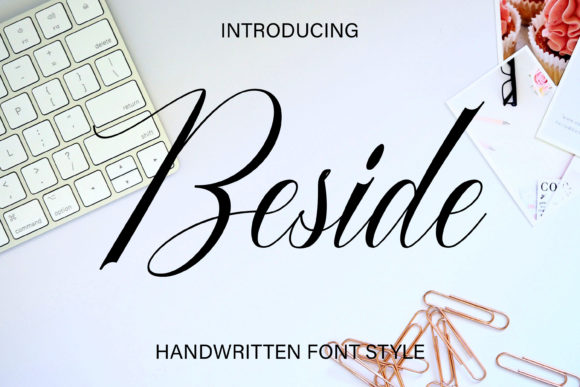
The Ultimate Guide to Beside Font: Elevate Your Designs with Elegance
Have you ever been in the middle of a design project, and suddenly, you’re stuck on finding the perfect font? I recall a recent experience where I was working on a client’s wedding invitation card, and my usual go-to fonts just weren’t cutting it. The design required something elegant, yet modern, and that’s when I stumbled upon the Beside font. In this article, we’ll dive into the world of Beside font, exploring its features, how to use it, and what makes it a fantastic addition to your design toolkit.
A Personal Encounter with Beside Font
As a designer, I’m always on the lookout for fonts that can elevate my projects. When I first laid eyes on Beside, I was immediately drawn to its beautiful, flowing script. It’s perfect for projects that require a touch of sophistication, such as packaging products, invitation cards, flyers, mockups, event posters, and more. The balanced character of Beside font makes it an excellent fit for a wide range of design applications.
An Honest Review of Beside Font
So, what makes Beside font stand out? Here are some of the things I love about it:
- ✨ Beautifully crafted characters: Each letter is carefully designed to provide a smooth, flowing script that’s easy on the eyes.
- ✅ High-quality vibes: Beside font is perfect for projects that require a professional, high-end feel.
- 🌈 Versatility: It works well with a variety of design styles, from modern to traditional.
While Beside font is exceptional, there are a few minor quirks to be aware of:
- 🤔 Limited use in body text: Due to its script nature, Beside font might not be the best choice for lengthy body text. It’s better suited for headings, titles, or short paragraphs.
- ⚠️ Glyph compatibility: Some glyphs or special characters might not work seamlessly across all platforms or software. Always test your design before finalizing.
The Story Behind Beside Font
Beside font was crafted with love and attention to detail by a talented designer who aimed to create a versatile, elegant script font. The designer’s inspiration came from a mix of traditional calligraphy and modern digital design, resulting in a font that’s both timeless and contemporary.
| Font Name | Beside Font |
| Author | TDC.Graphic |
| What type of projects is Beside font best suited for? | Beside font is perfect for projects that require a touch of elegance and sophistication, such as packaging products, invitation cards, flyers, mockups, event posters, and more. |
| Is Beside font easy to read? | Beside font is designed to be elegant and easy to read, especially in large sizes or short paragraphs. However, it might not be the best choice for lengthy body text. |